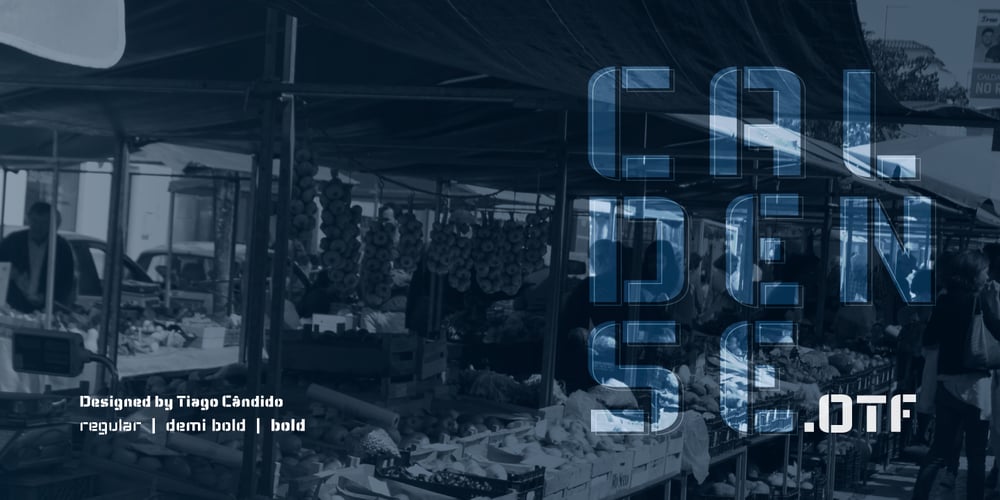
Caldense Stencil Font Family was designed by Tiago Cândido and published by Tiago Cândido. Caldense Stencil contains 3 styles and family package options. The typeface was baptized as “Caldense” in order to honor the city of Caldas da Rainha, a small city in Portugal, the typography’s birth place.It has three weights, Regular, Demi Bold and it is a stencil font, sans serif and grotesque. Each character was based on a grid and was built in modules, having round edges and straight finishes.The font is best used in titles.